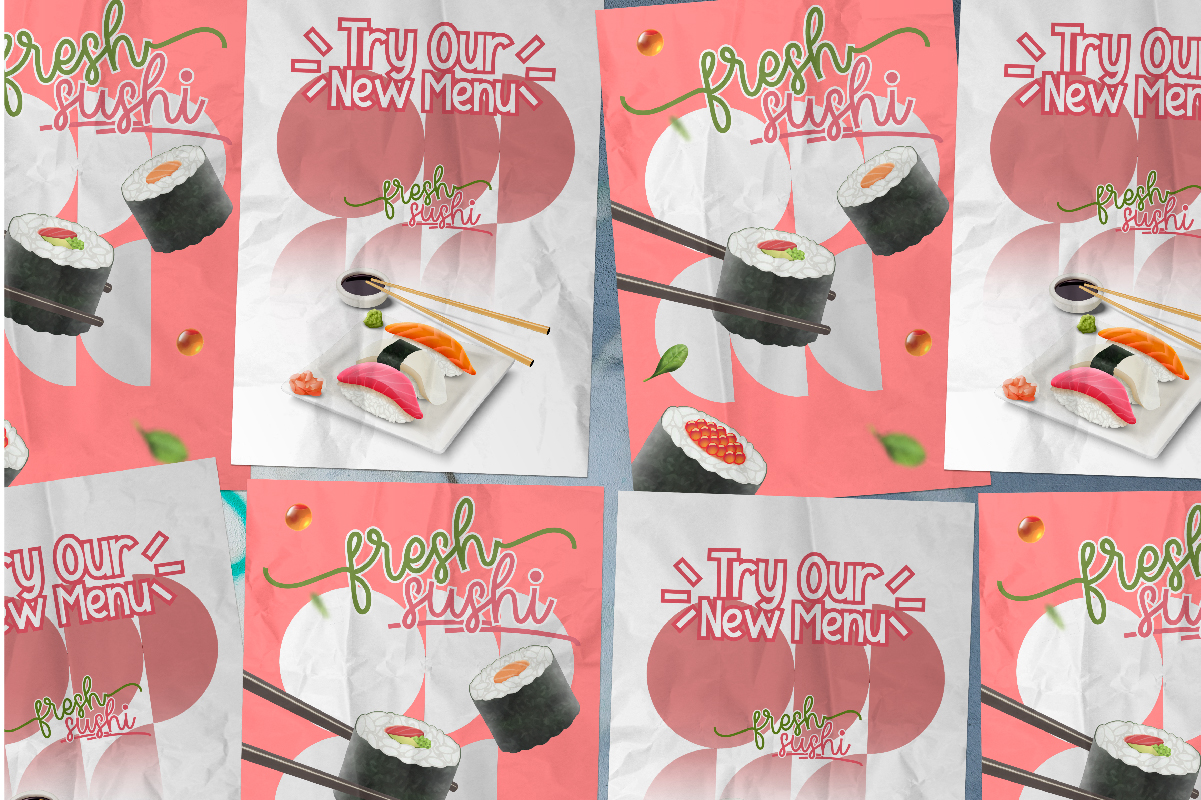
Garlic Shrimp Font
Garlic Shrimp Font Duo
This is a font duo that consist of two different styles : playful sans and monoline handwriting script. These two fonts will give a friendly and cheerful impression in every design you make while making it standout from crowd. It will be suitable for many industries such as food and beverage, kids stuff, publishing, restaurant, school things, toy, and many more!
Garlic Shrimp Font has includes full set of Uppercase and Lowercase Basic Character, Numerals and Punctuation, Ligature, and Swoosh to provide perfection that you will love making it great for many projects such as billboard, blog headers, brochure, label, poster, product packaging, quote, stationery, etc.